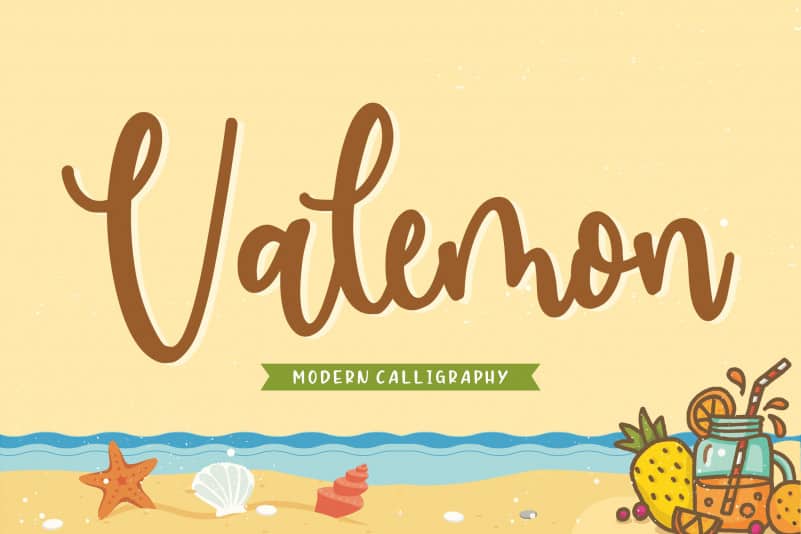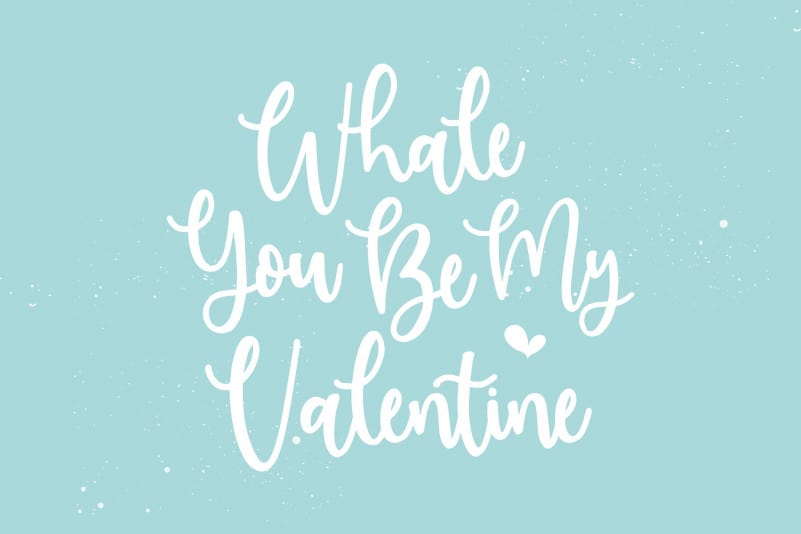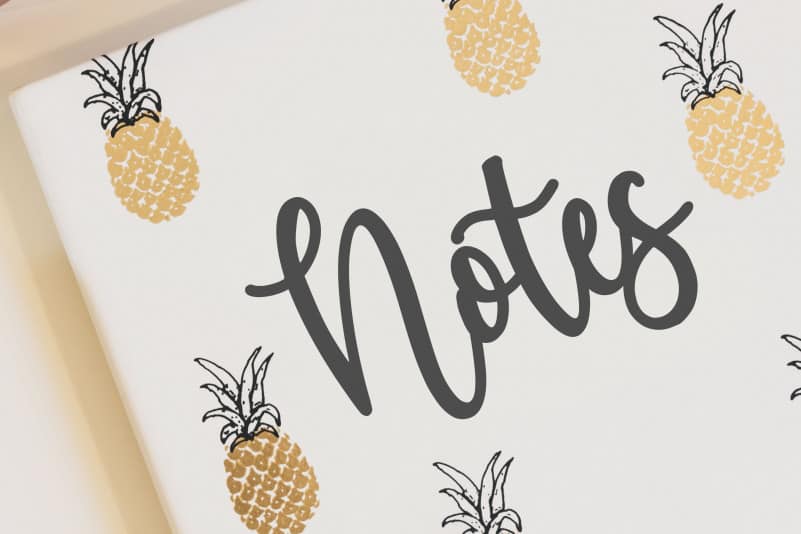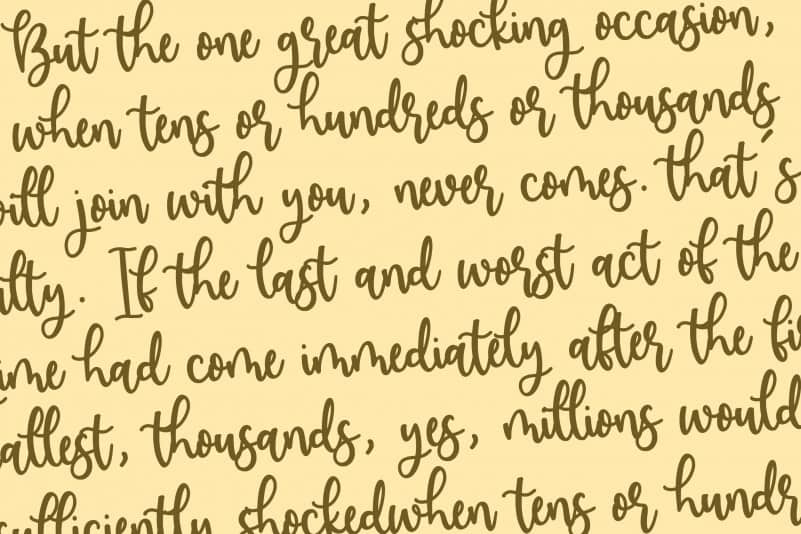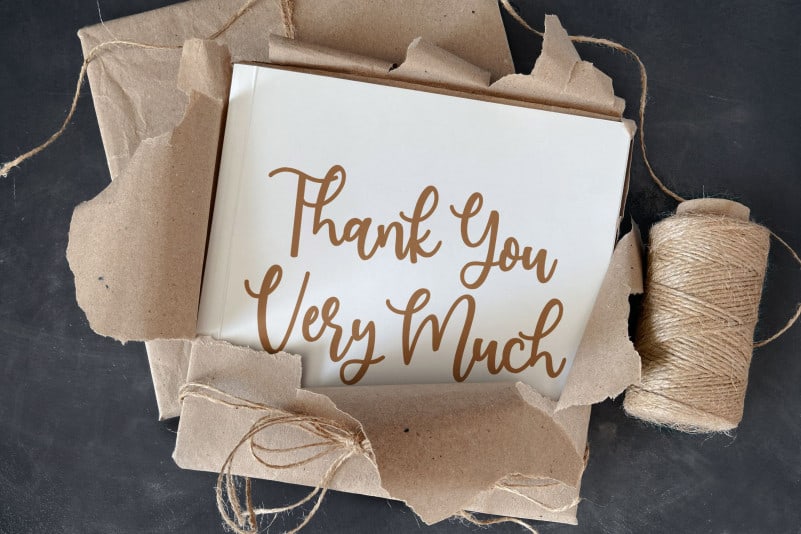
Valemon Modern Calligraphy Font
Proudly Present, Valemon Modern Calligraphy Font.
Valemon is a Modern Calligraphy font.
It is perfect for product packaging, branding project, megazine, social media, wedding, or just used to express words above the background.